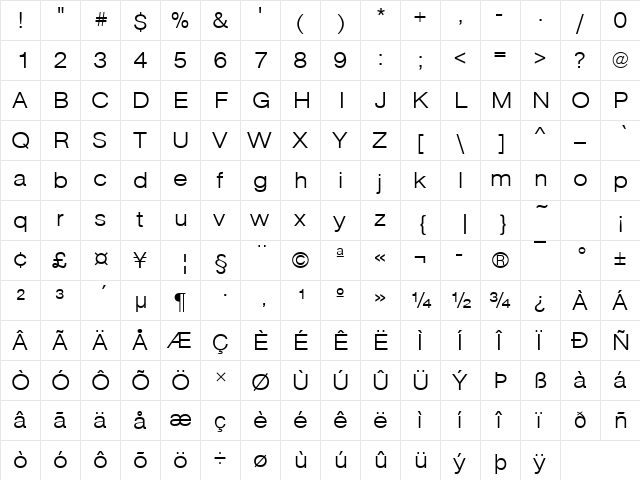
URWAccidaliaBucTLigExt Regular
Design Context for URWAccidaliaBucTLigExt Typeface
URWAccidaliaBucTLigExt is a composed and adaptable typeface that performs quietly and consistently across a wide range of design contexts.
Pro Tip: Use URWAccidaliaBucTLigExt in both headline and body roles to test its range before committing to a single application.